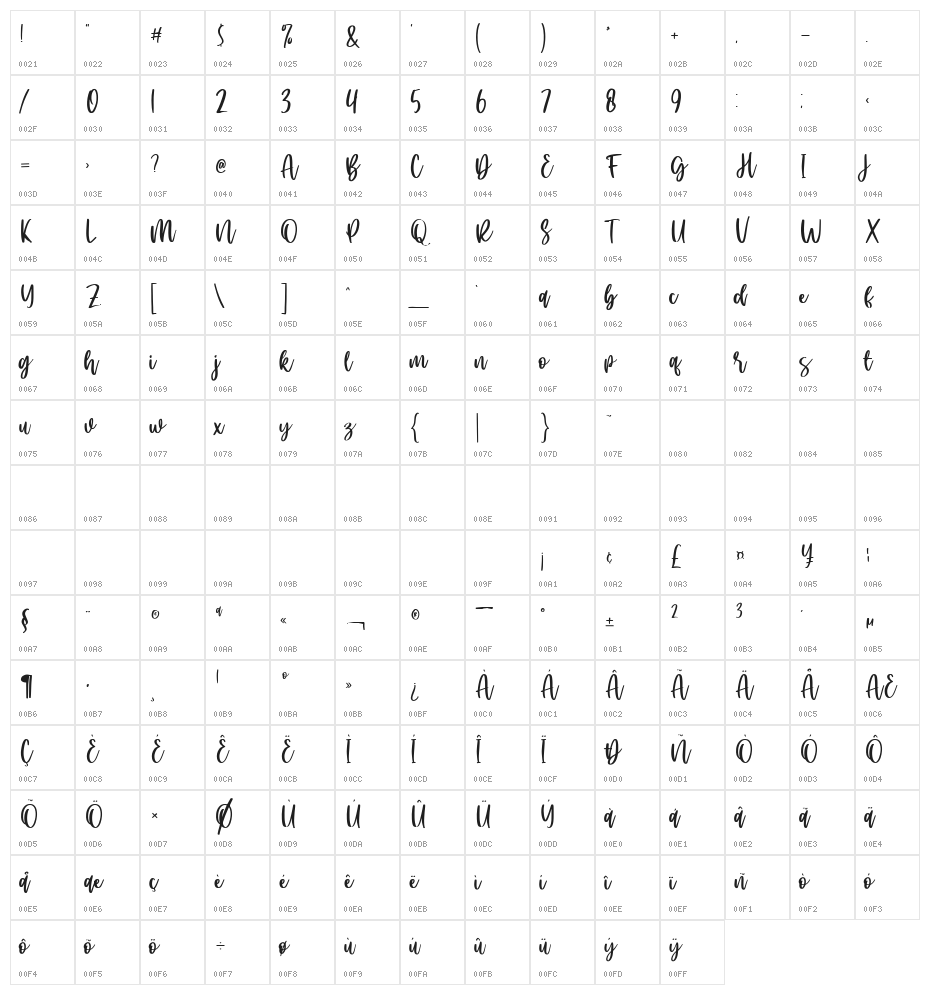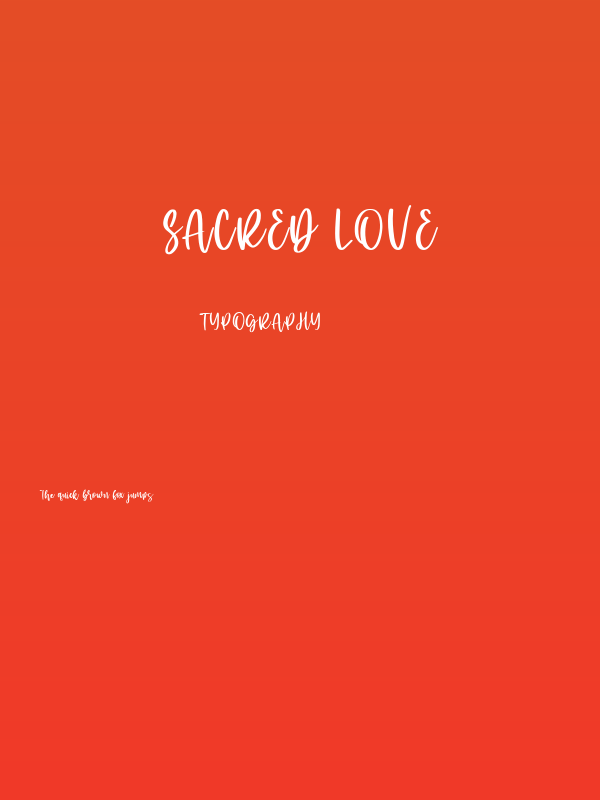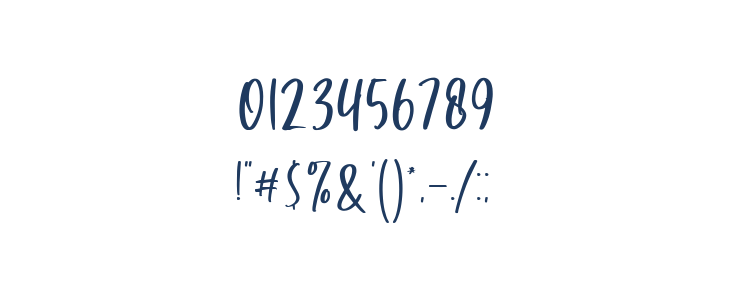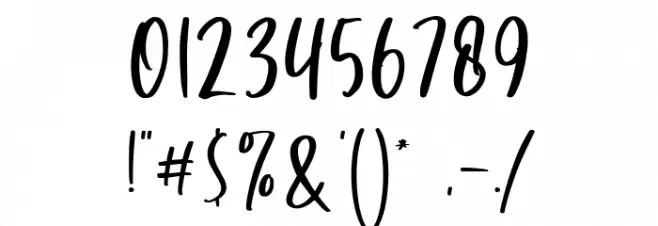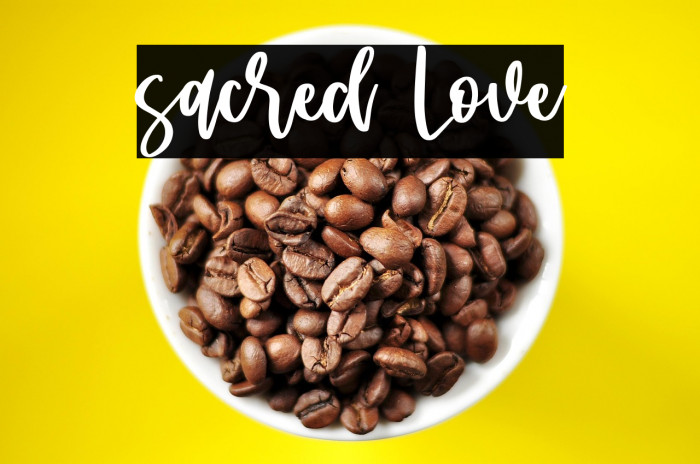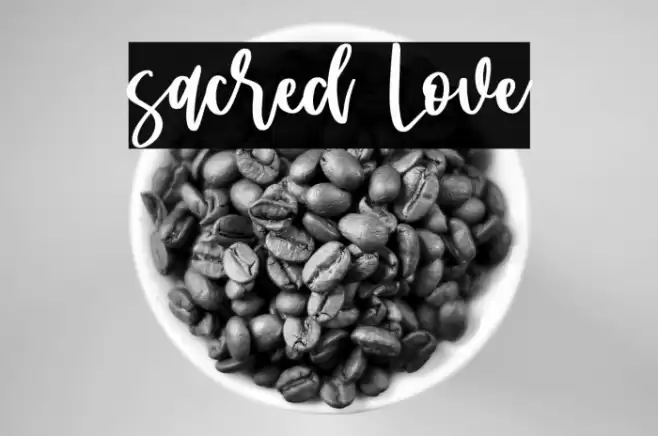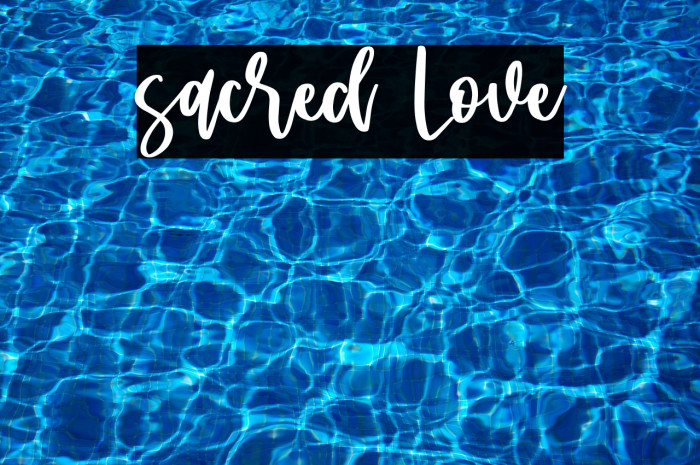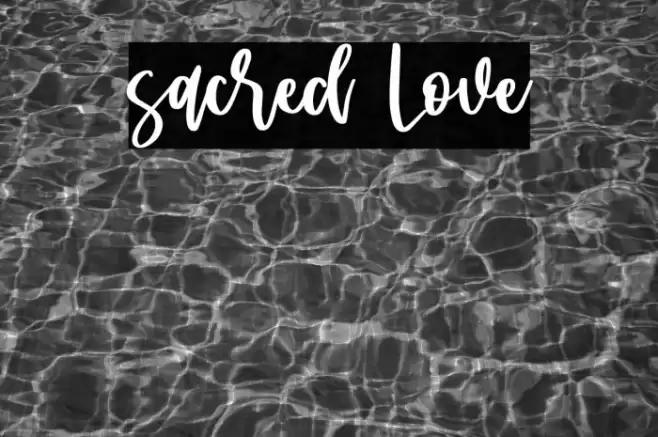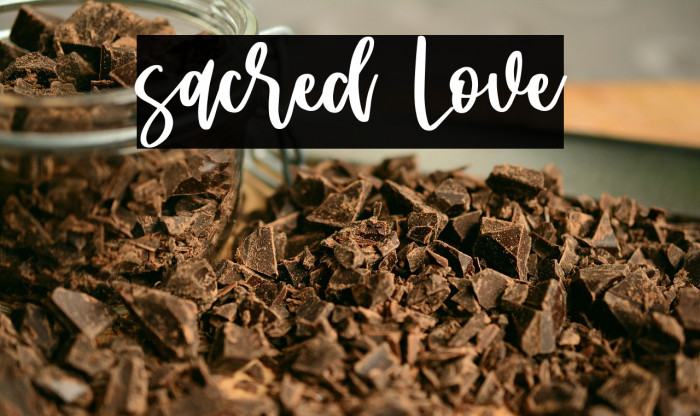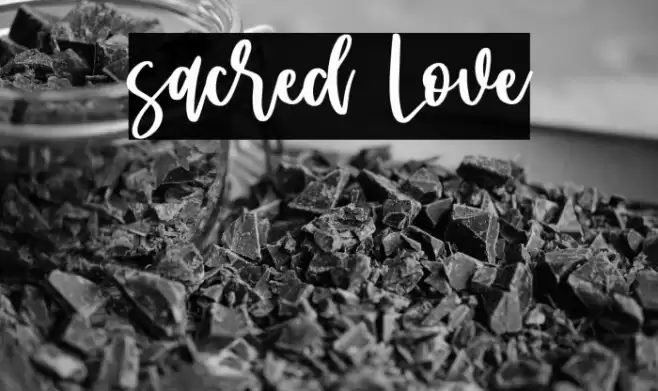
sacred Love Font
This font features a lively and expressive handwritten style, characterized by its fluid strokes and playful curves. The uppercase letters are bold and dynamic, with a slight slant that adds a sense of movement. The lowercase letters maintain a consistent flow, complementing the uppercase with their rounded forms and smooth connections. Numbers and special characters are crafted with the same attention to detail, ensuring a cohesive look across all elements. The overall appearance is both elegant and casual, making it versatile for various design needs.